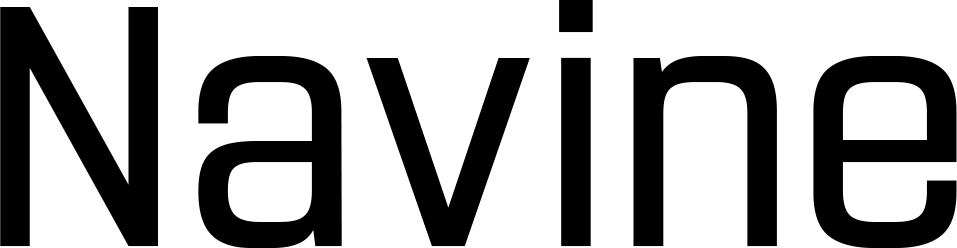
Navine Font
What better kickstart with Navine font with a sans serif font style? Although there are two different types of fonts, you can do dozens of designs such as logo design, business cards, and flyers as soon as possible.
This font allows you to design the text of many motivational writings fashion magazines and newspapers as gorgeously as possible.
Navine is a rectangular sans serif typeface with 3 widths, each with 9 uprights and the corresponding italics. Navine is crafted with powerful OpenType features, alternate glyphs, kerning pairs, superiors, inferiors, and much more. Navine blends beautifully in your creative designs.